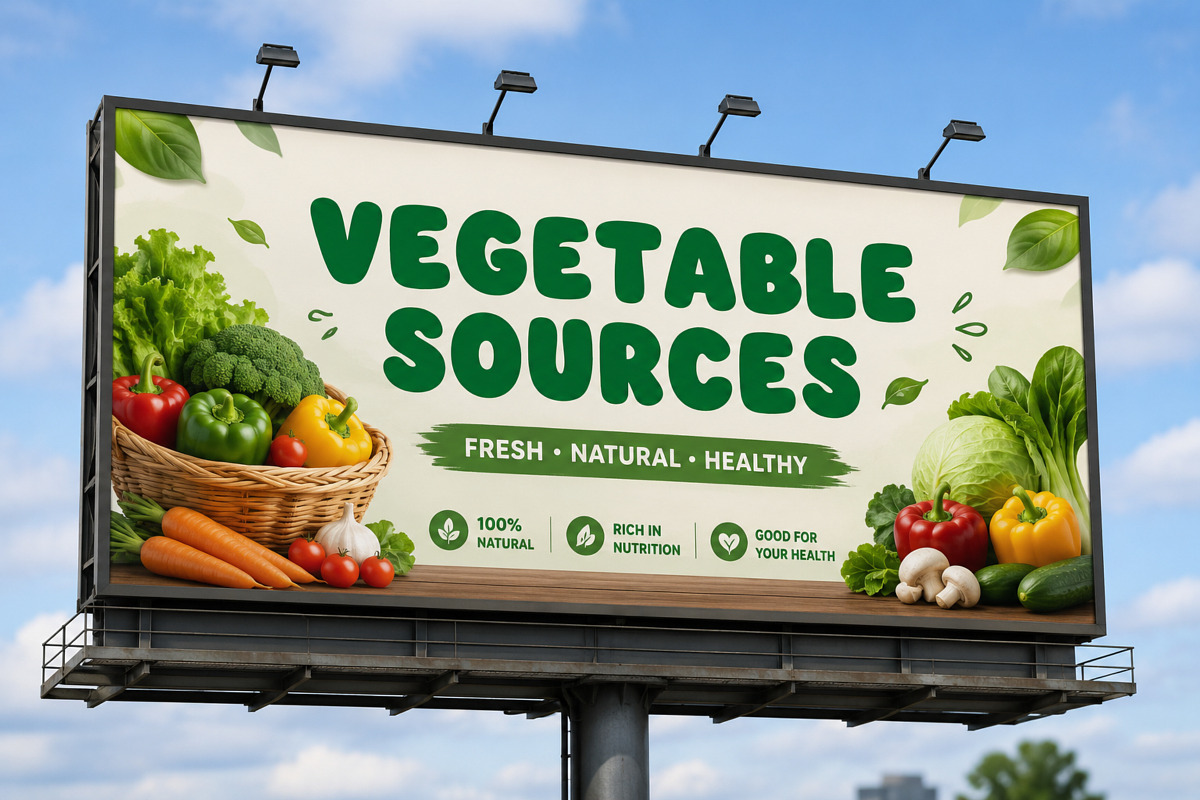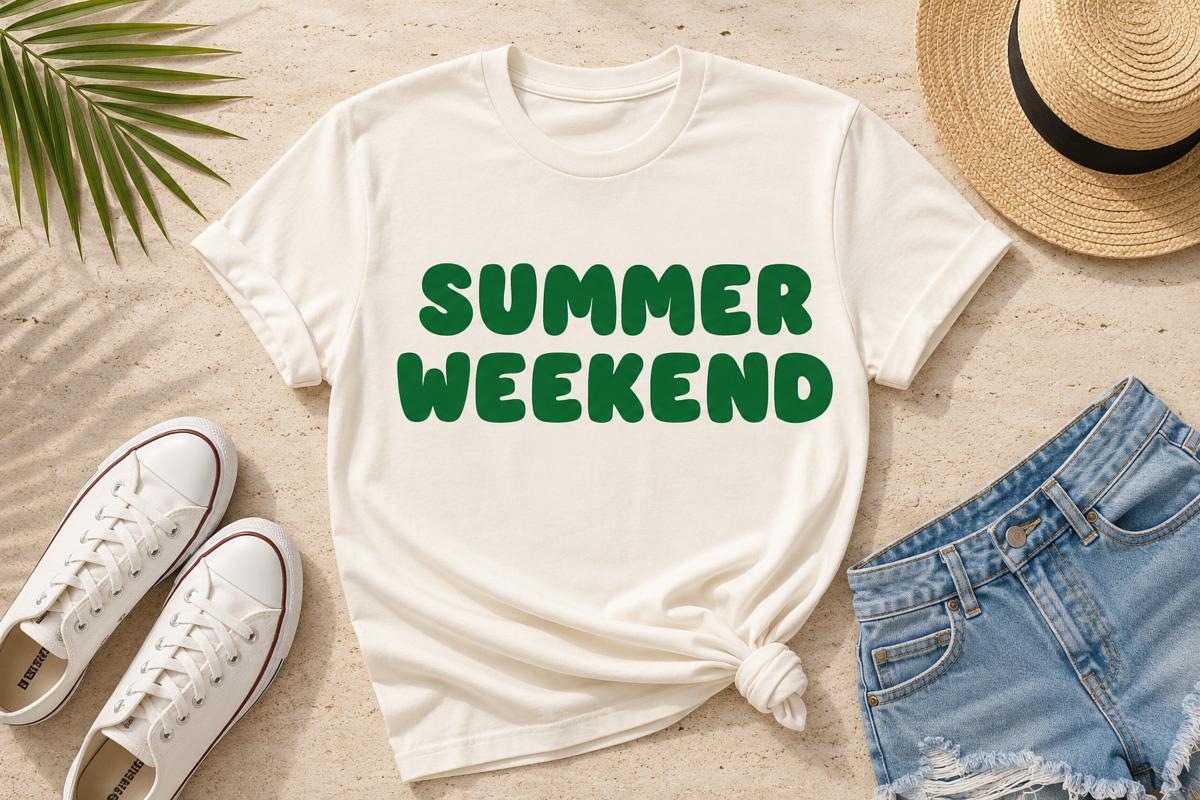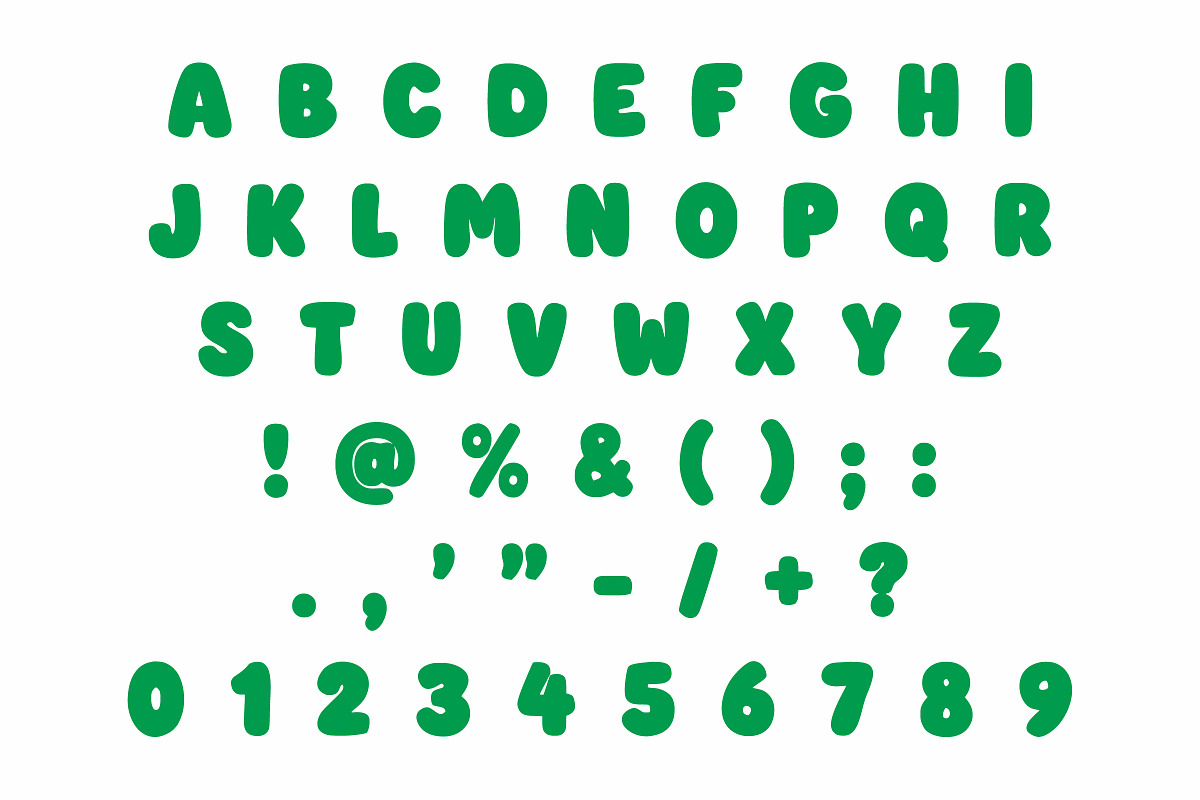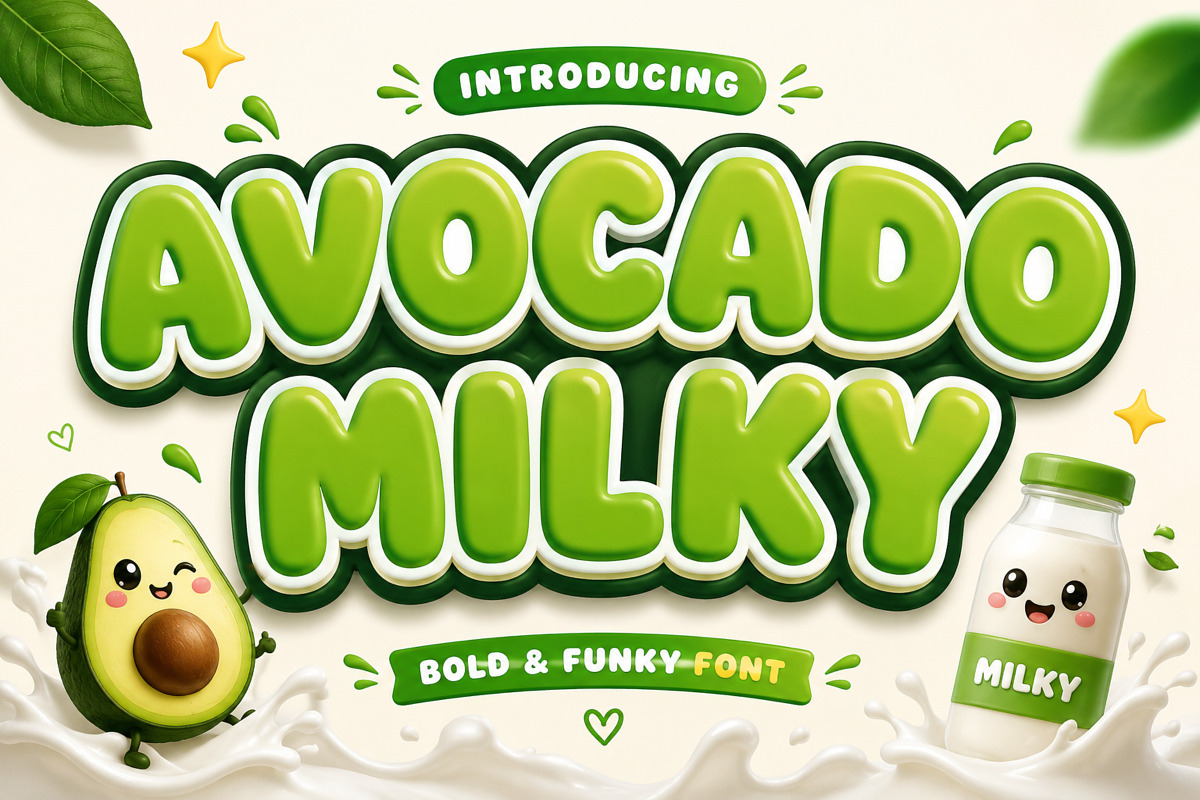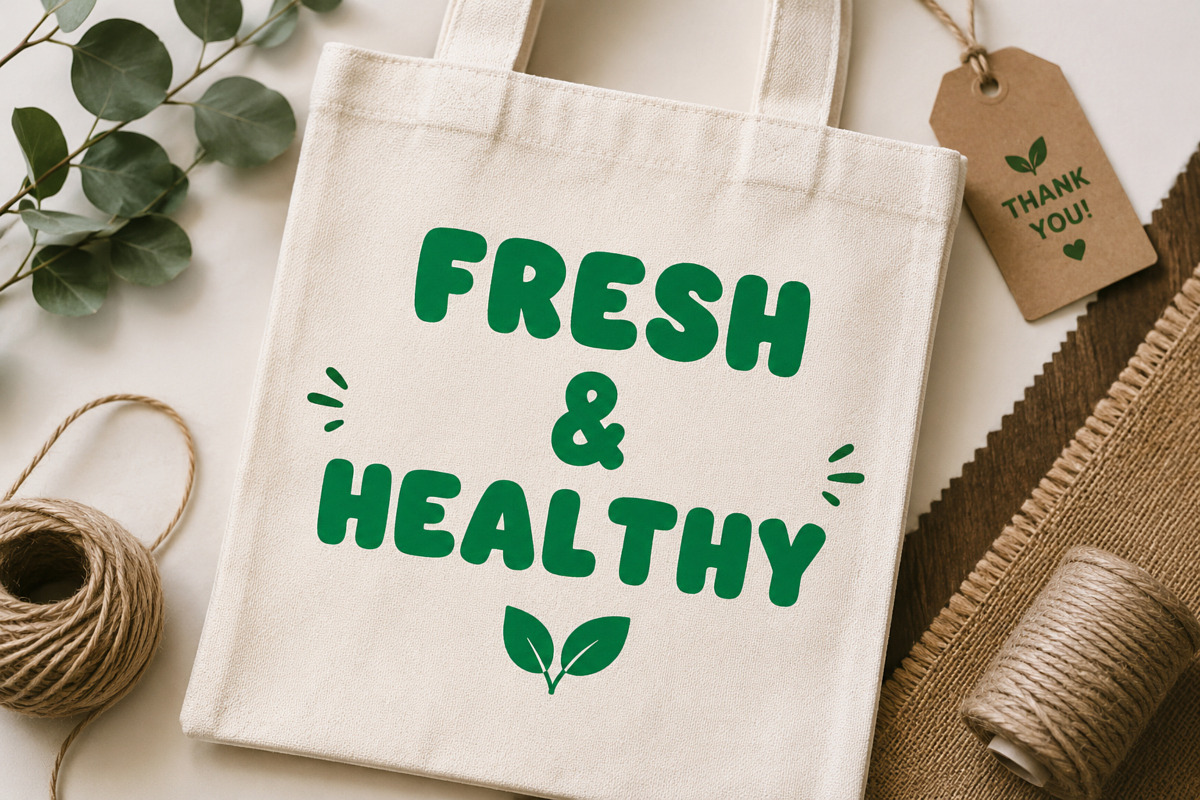
Avocado Milky
Avocado Milky is a bold and funky display font featuring soft rounded shapes with a cheerful personality. Its thick, smooth letterforms create a fun and approachable look, making it ideal for children’s designs, snack and beverage branding, logos, packaging, posters, birthday invitations, classroom materials, Cricut projects, stickers, and printable crafts.
Whether you’re creating eye-catching headlines or playful branding, Avocado Milky delivers a fresh and modern aesthetic that stands out across both digital and print designs.